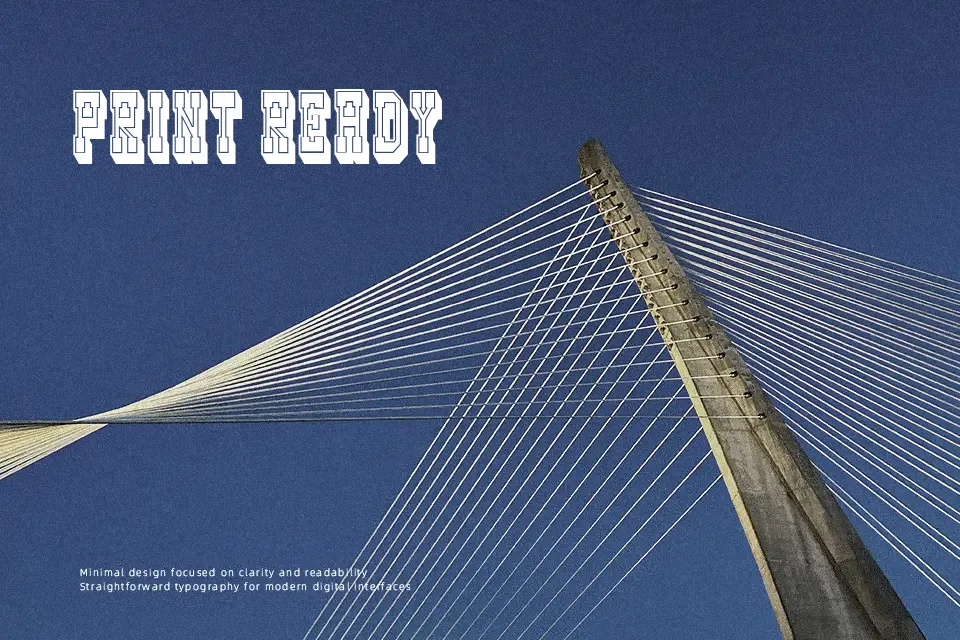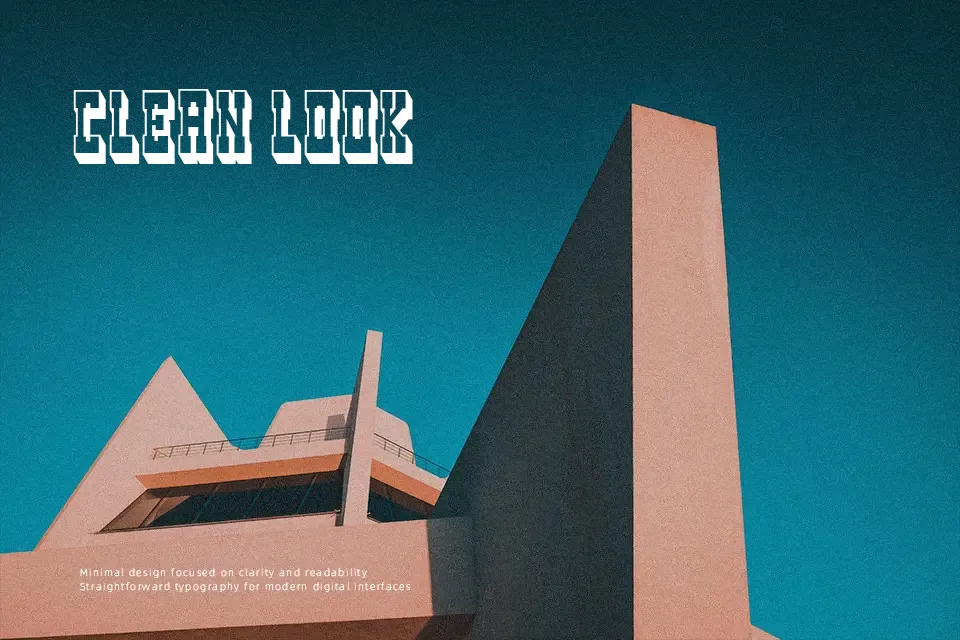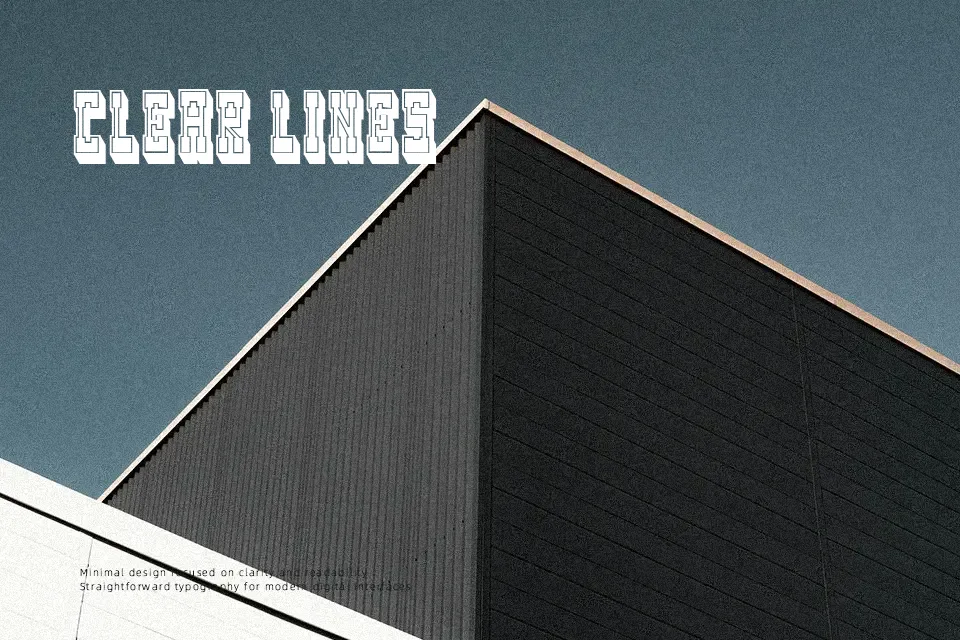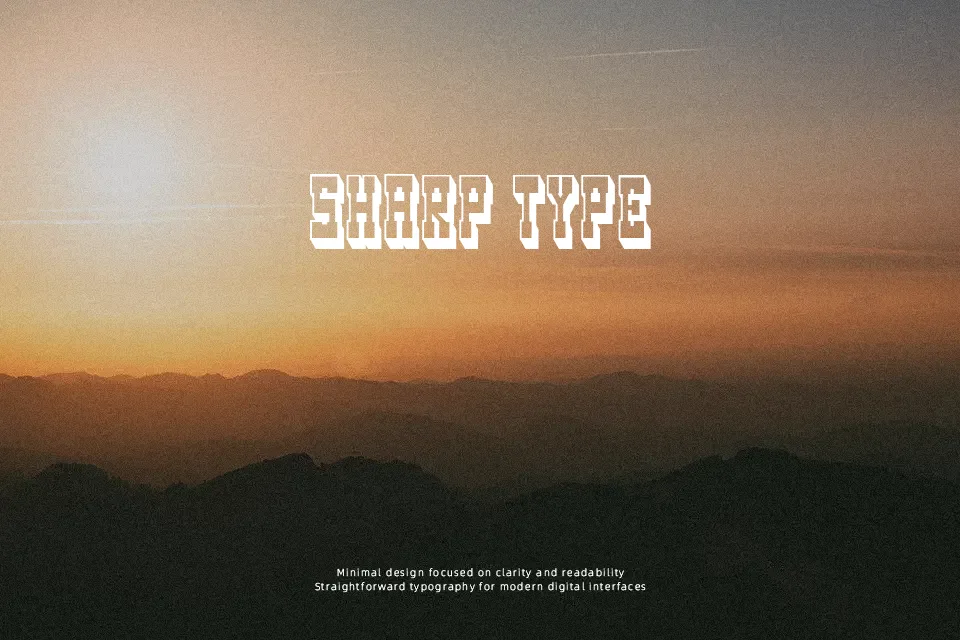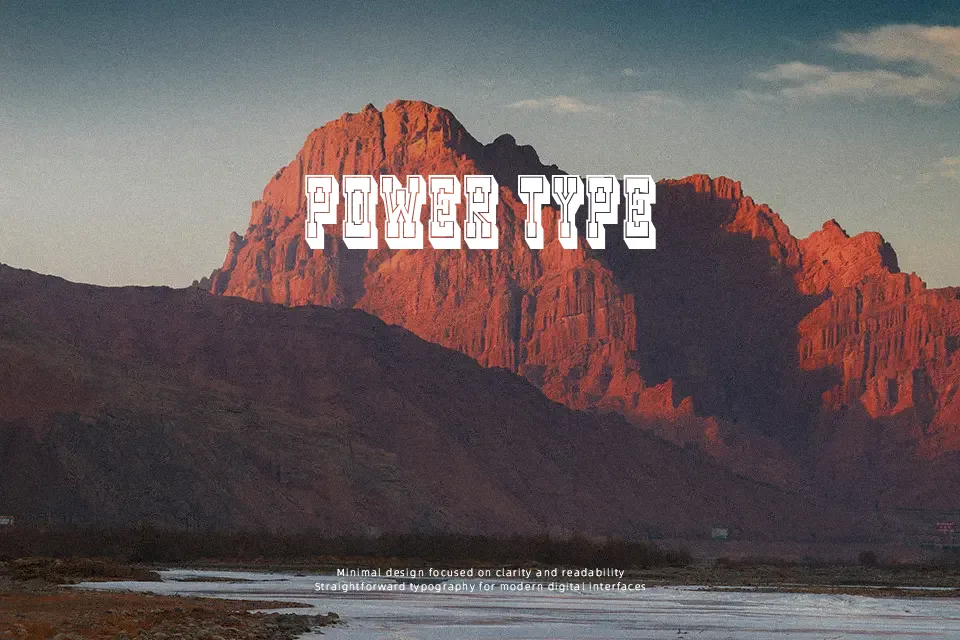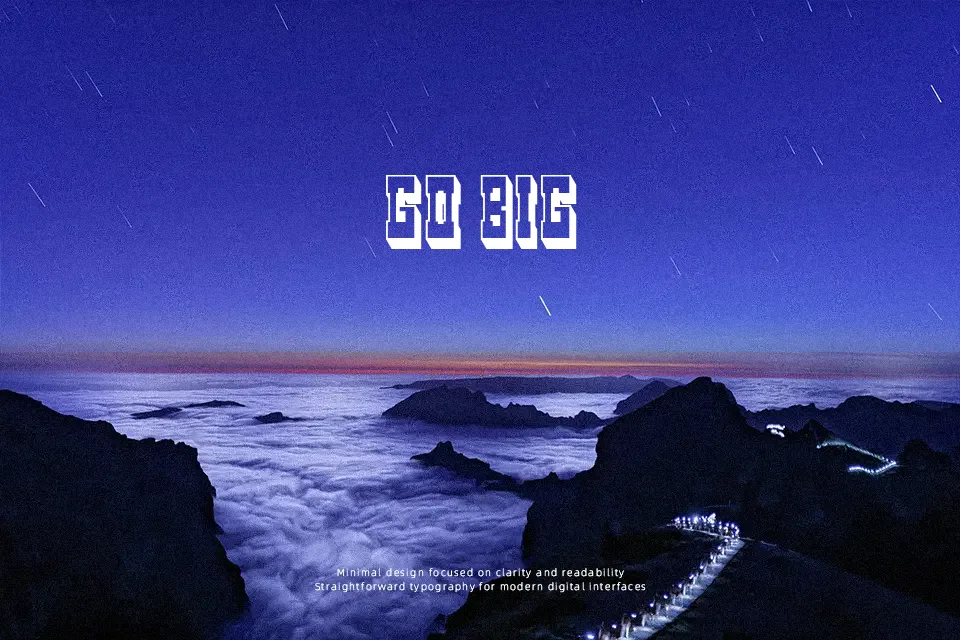
Newlywed Font
Newlywed presents a set of bold, decorative letterforms with a distinctly western-inspired structure that leans on strong vertical strokes, angular contours, and prominent ornamental detailing. The strokes show clear contrast between thick and thin segments, which gives the design a striking silhouette but also makes it more sensitive at smaller sizes. Spacing appears relatively tight, creating a compact rhythm that favors short words and punchy phrases. In larger display settings the shapes remain legible and the dramatic forms help draw quick attention. However, the busy detailing and dense structure reduce comfort in longer lines of text and can make small captions harder to scan at a glance.
western-themed posters and flyers
event titles and festival signage
themed product packaging and labels
short headlines on social media graphics
long paragraph text or articles
small interface labels and menus
formal corporate reports and documents
dense tables or technical manuals
Perfect for headline, logo, and packaging, with a artistic and decorative style.